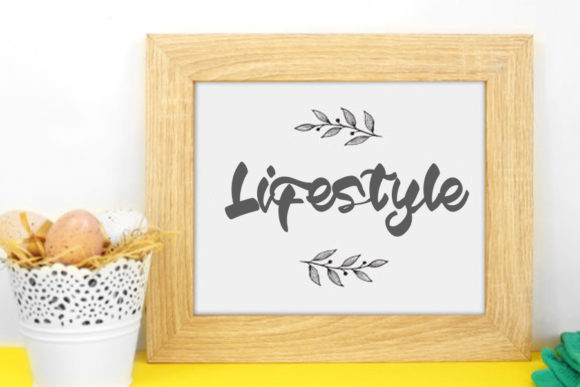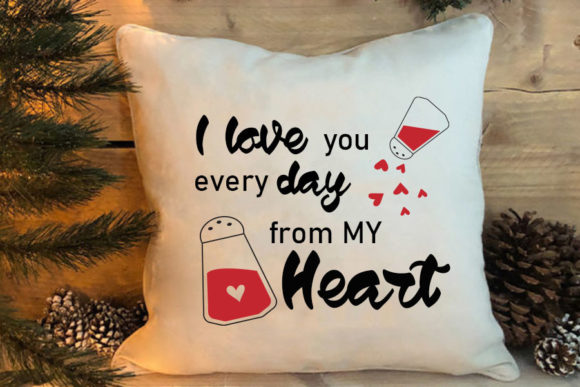
Jackson Font
db-ku.com - Script & Handwritten -- Jackson is a chic and trendy handwritten font. Dainty and joyful, this font will be ideal for writing wedding invitations, cards or any other design that may need a romantic, personalized touch!